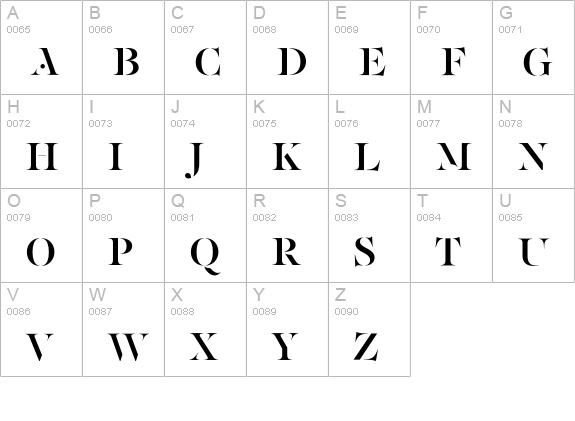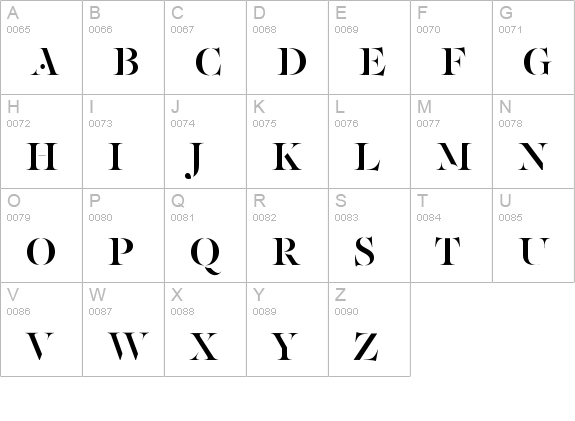
PFRegalStencilPro-Medium is a balanced, medium-weight variant in the PFRegalStencilPro typeface family \xE2\x80\x94 well suited to sub-headlines, navigation, and balanced editorial work.
PFRegalStencilPro-Medium is a versatile and elegant font that exudes a sense of sophistication and style. With its clean lines and contemporary design, this font is ideal for a wide range of projects, from branding to editorial design. The stencil effect adds a unique touch, making it stand out from other fonts. What's even better is that PFRegalStencilPro-Medium is available for free download at FontsMarket.com. This means you can easily access this high-quality font without any cost, making it a valuable addition to your font collection. Whether you're working on a professional project or a personal design, PFRegalStencilPro-Medium is sure to elevate your work and leave a lasting impression.